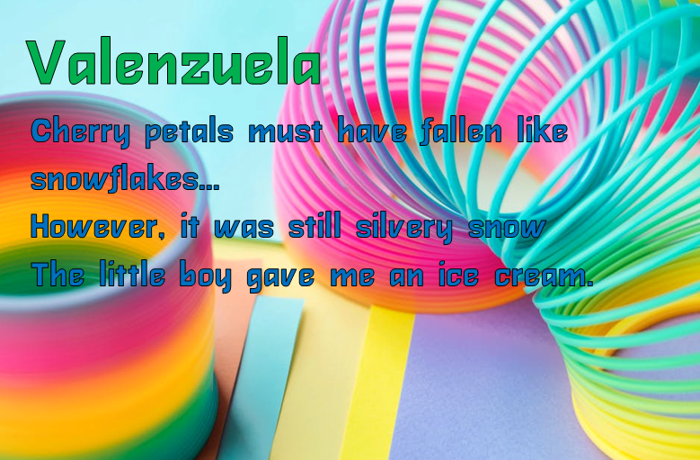
Valenzuela Font
A TrueType restoration of Susan Kare's Macintosh Venice font.
Named after American professional voice actress and singer Cristina Vee.
Second installment of Macintosh Remix font series.